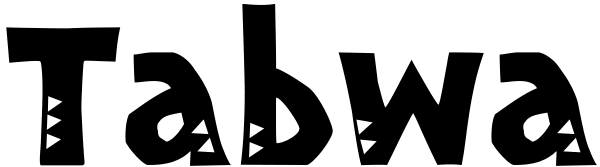
Tabwa
The design of the Tabwa font was inspired by the font Neuland designed by Rudolf Koch in 1923. Rather than attempting to re-create his font in a digital form as so many others have done, I have tried to capture the "spirit" of his font and merge...